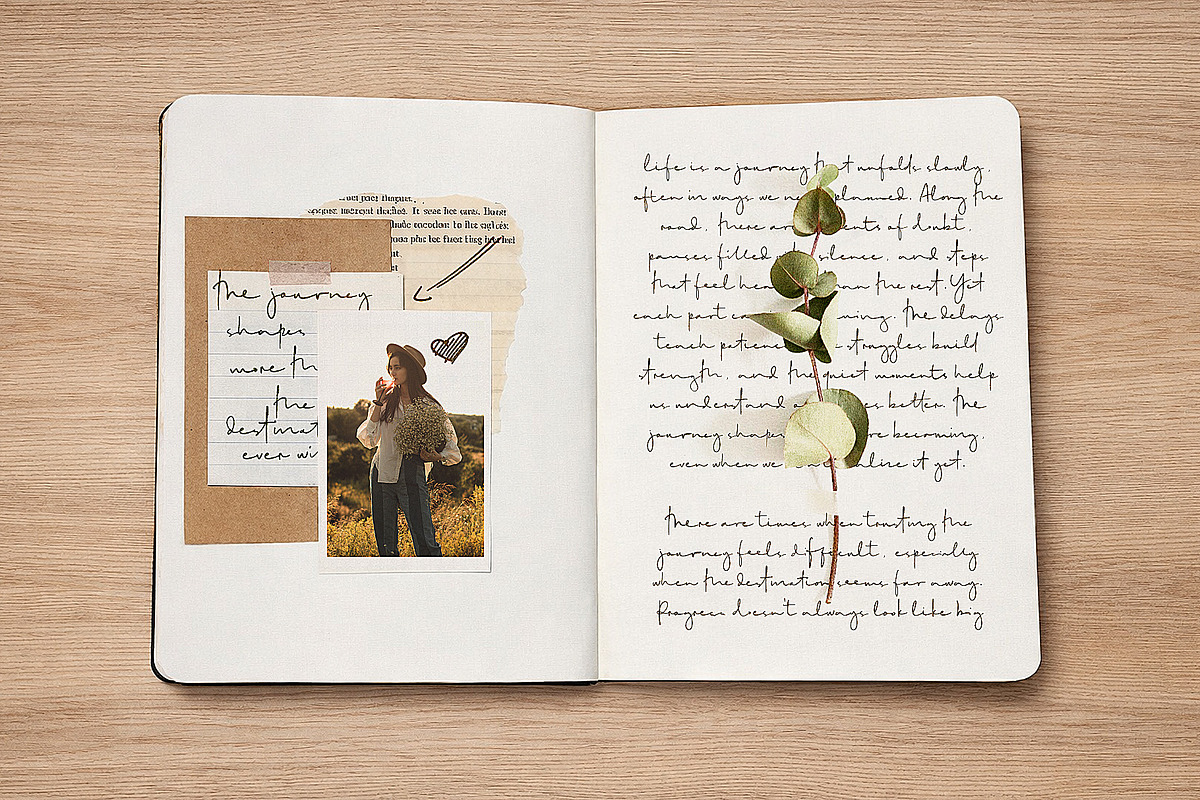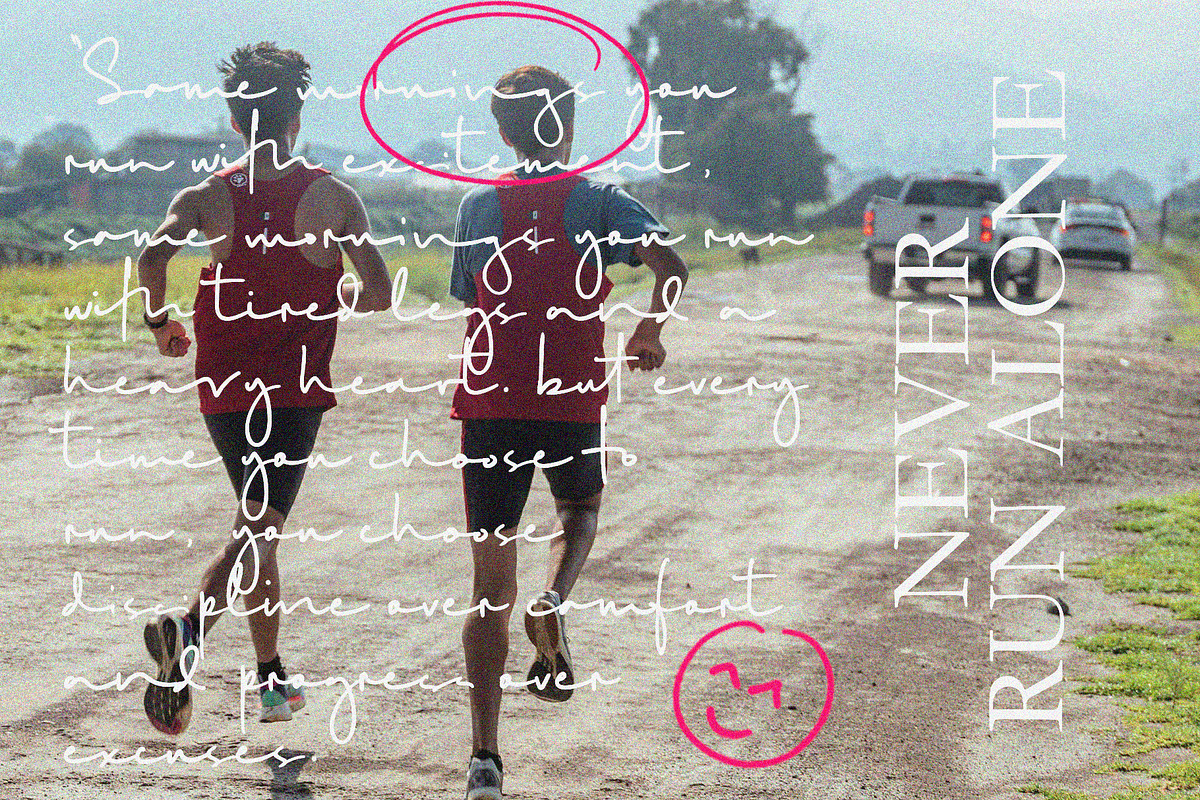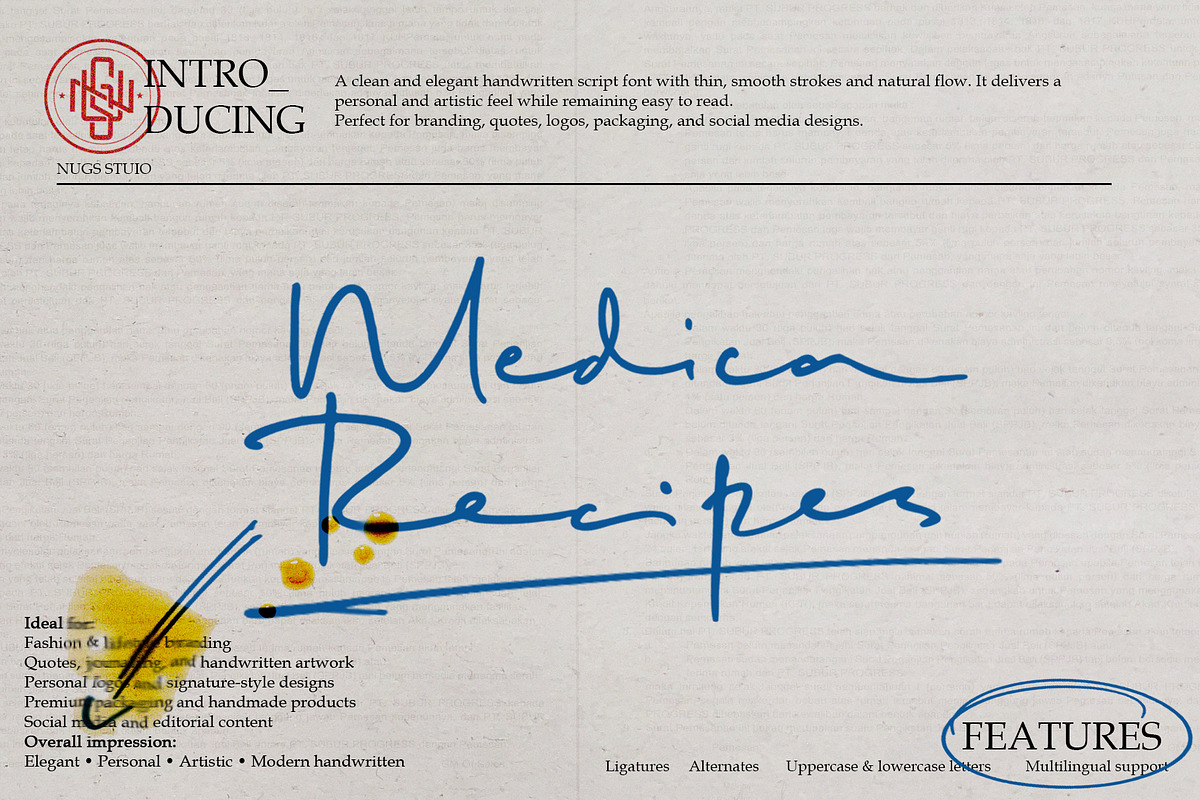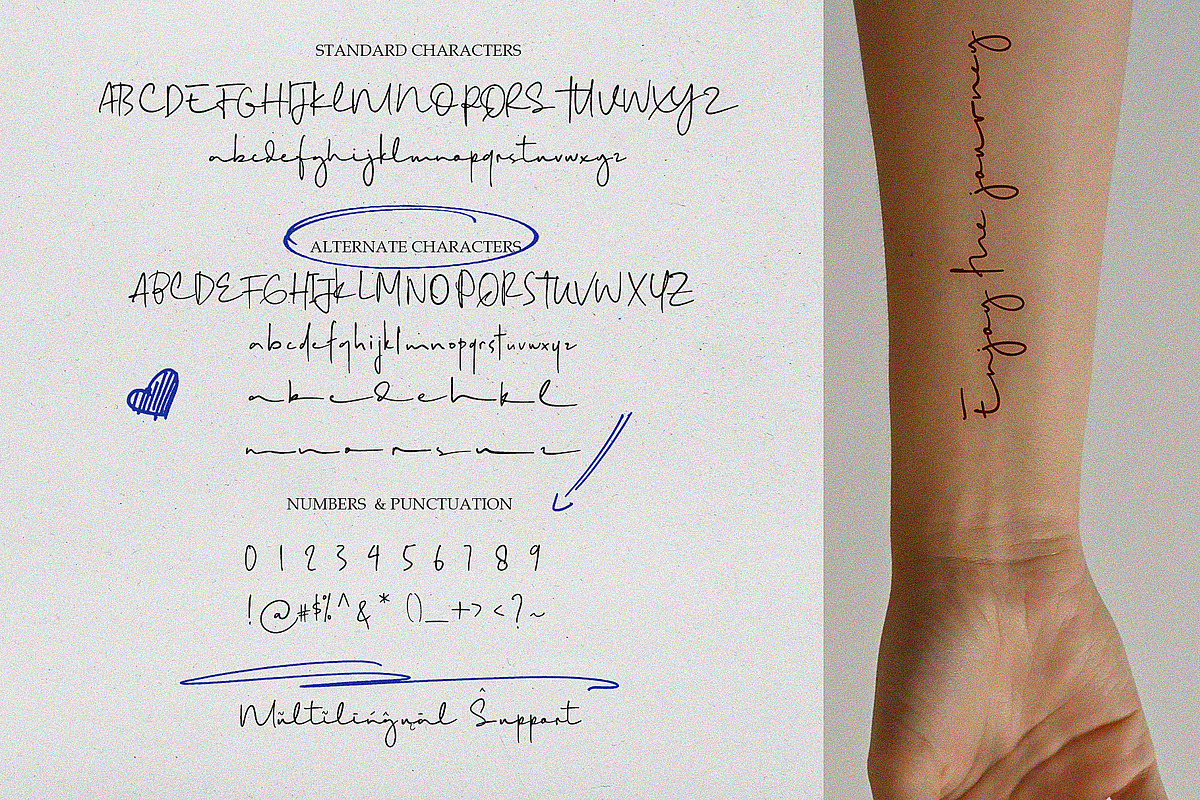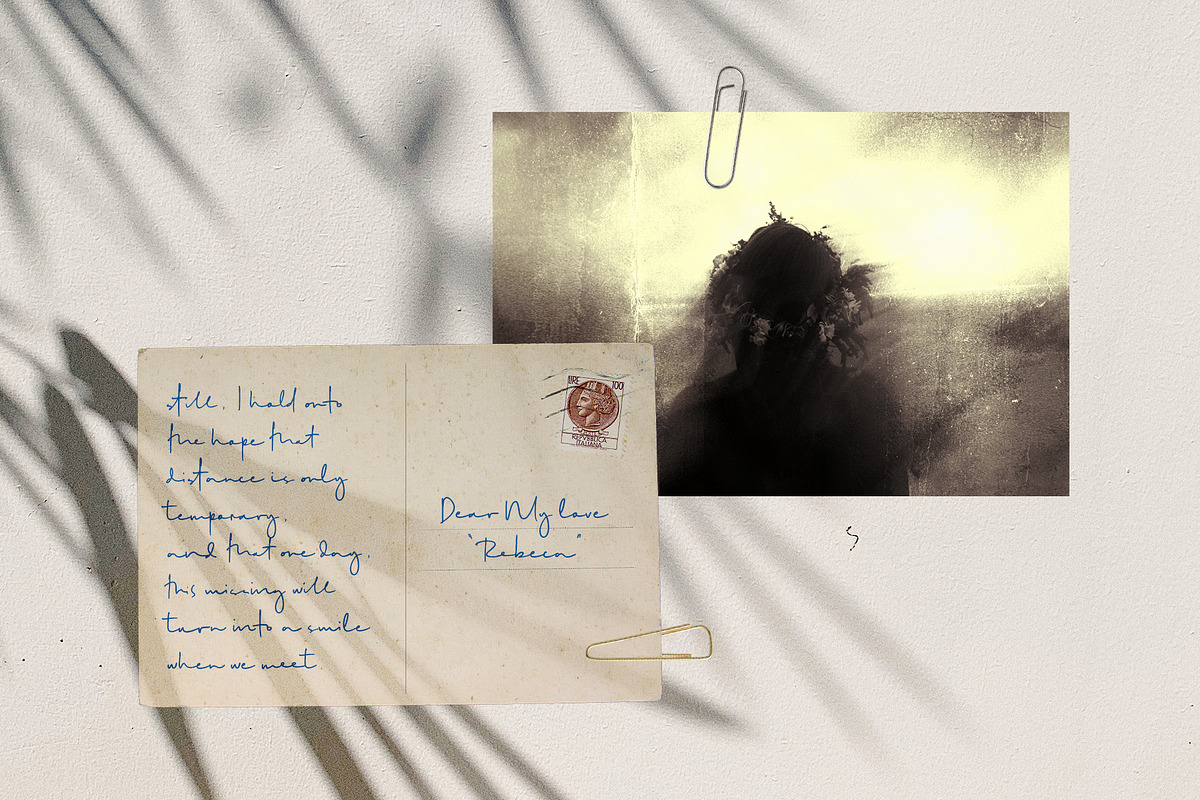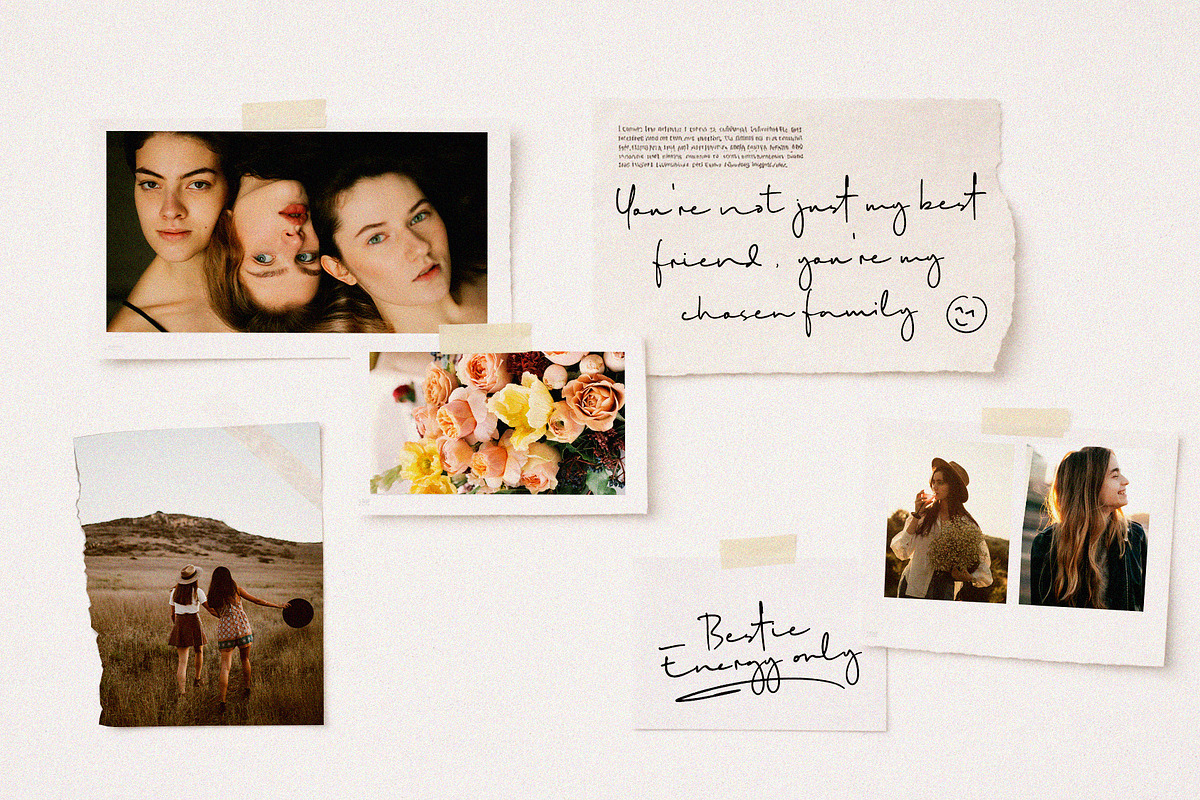
Medica Recipes
A clean and elegant handwritten script font with thin, smooth strokes and a Organic flow.d. Perfect for branding, quotes, logos, packaging, and social media designs.
- Standard ligatures
- Numerals & punctuation
Style: Handwritten • Elegant • Modern • Minimal